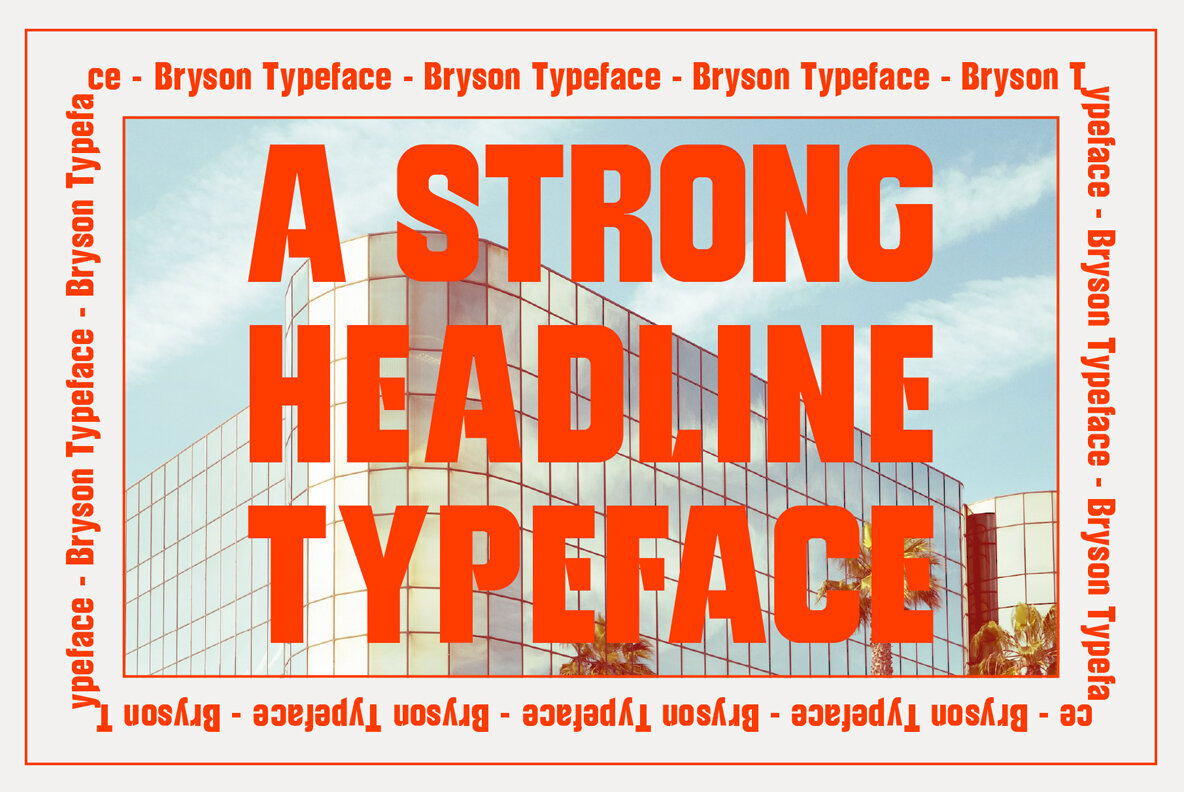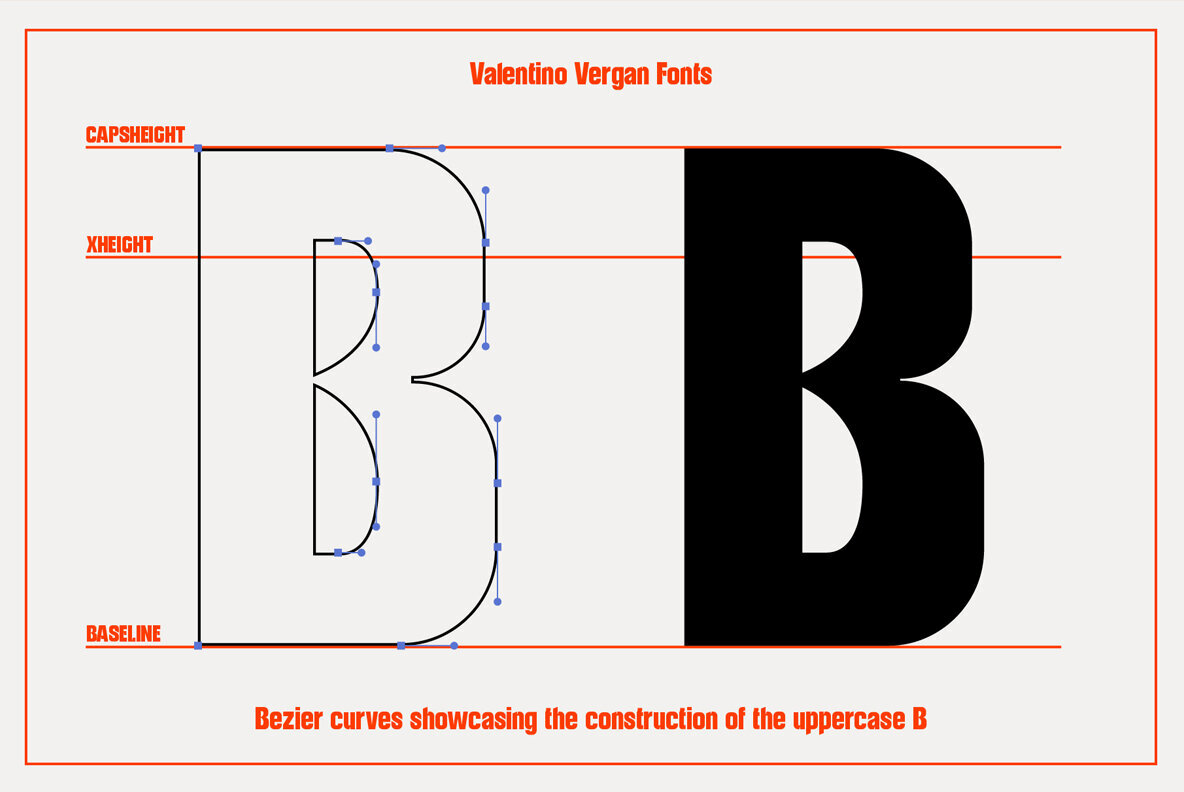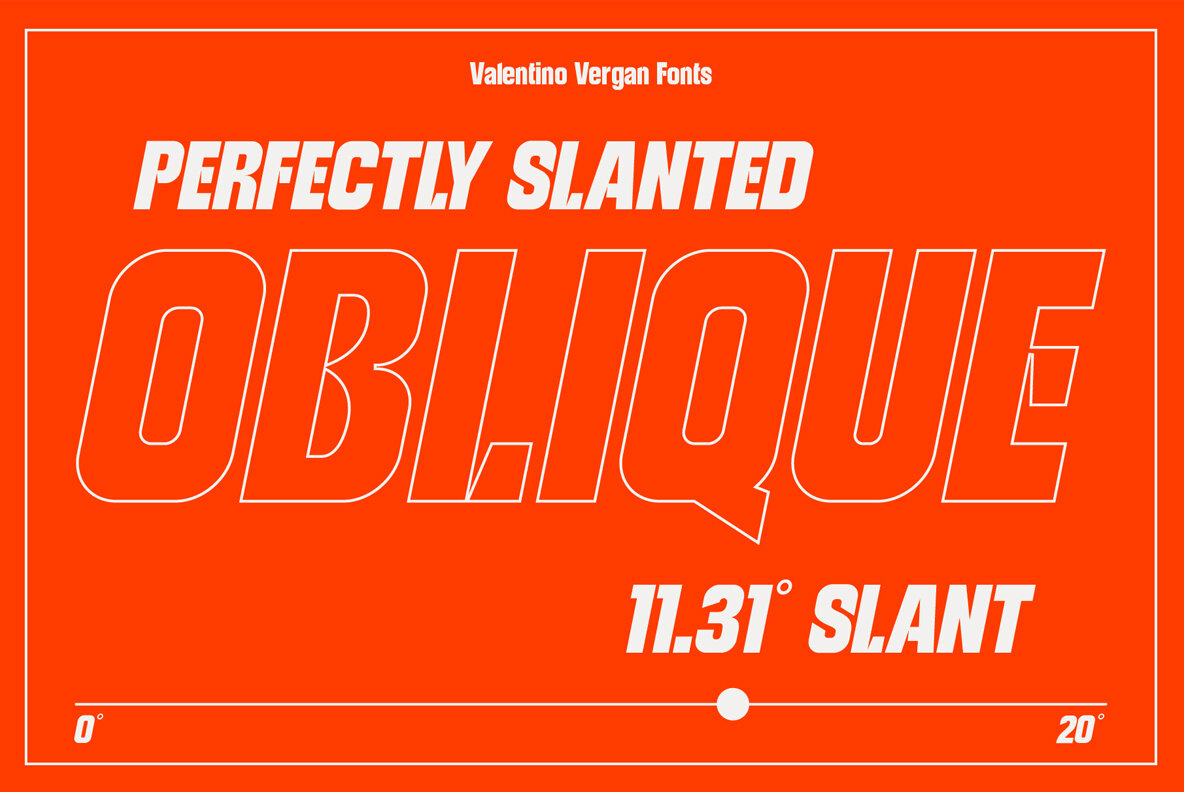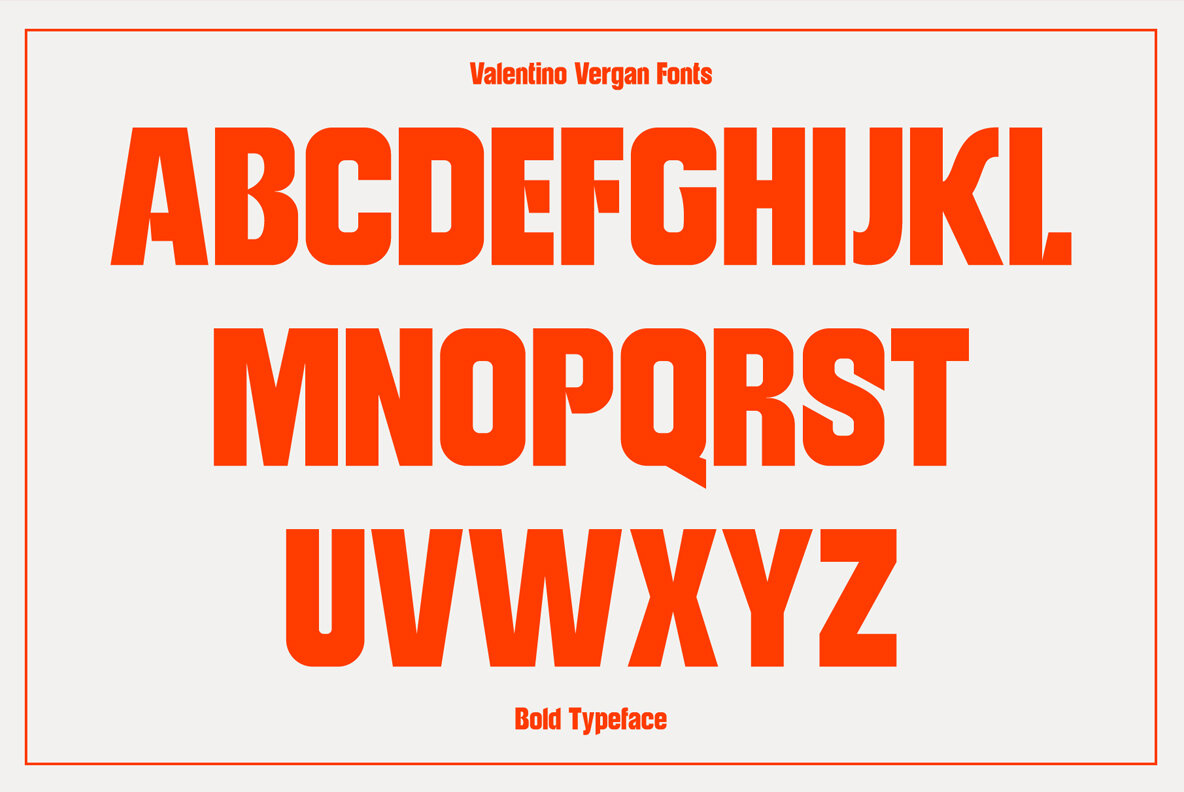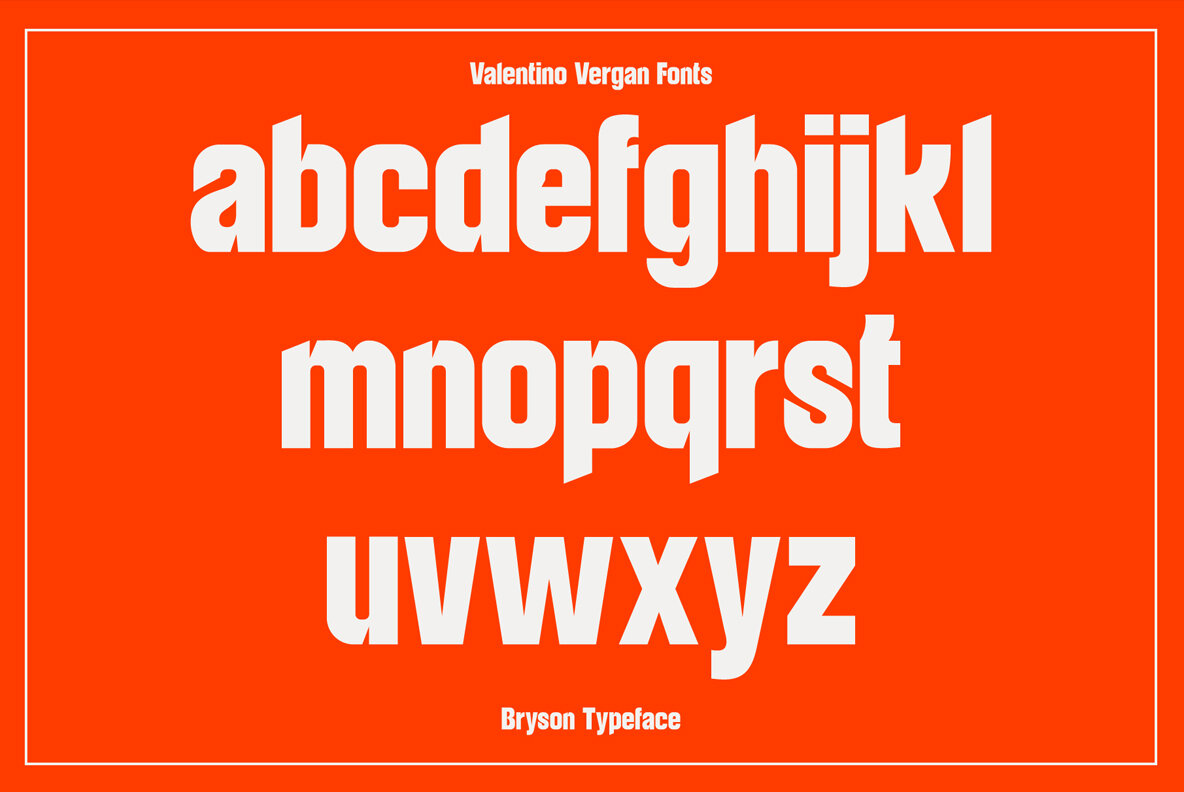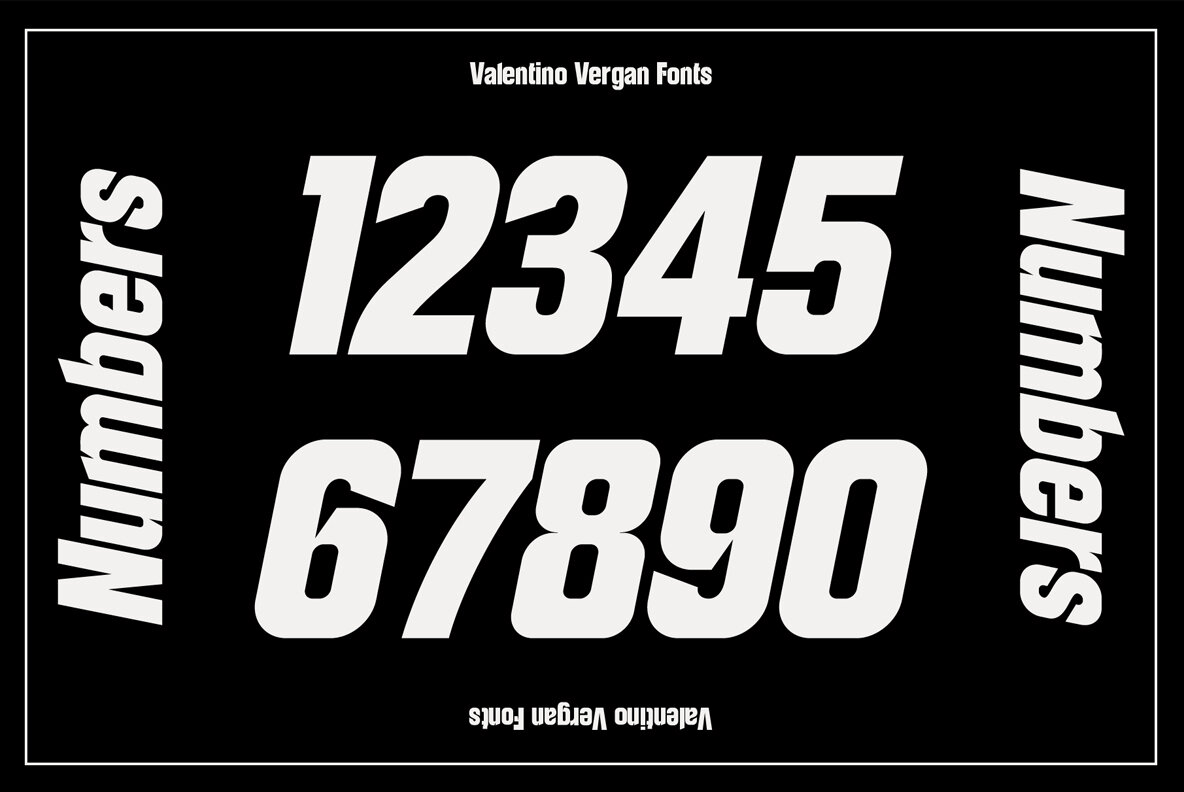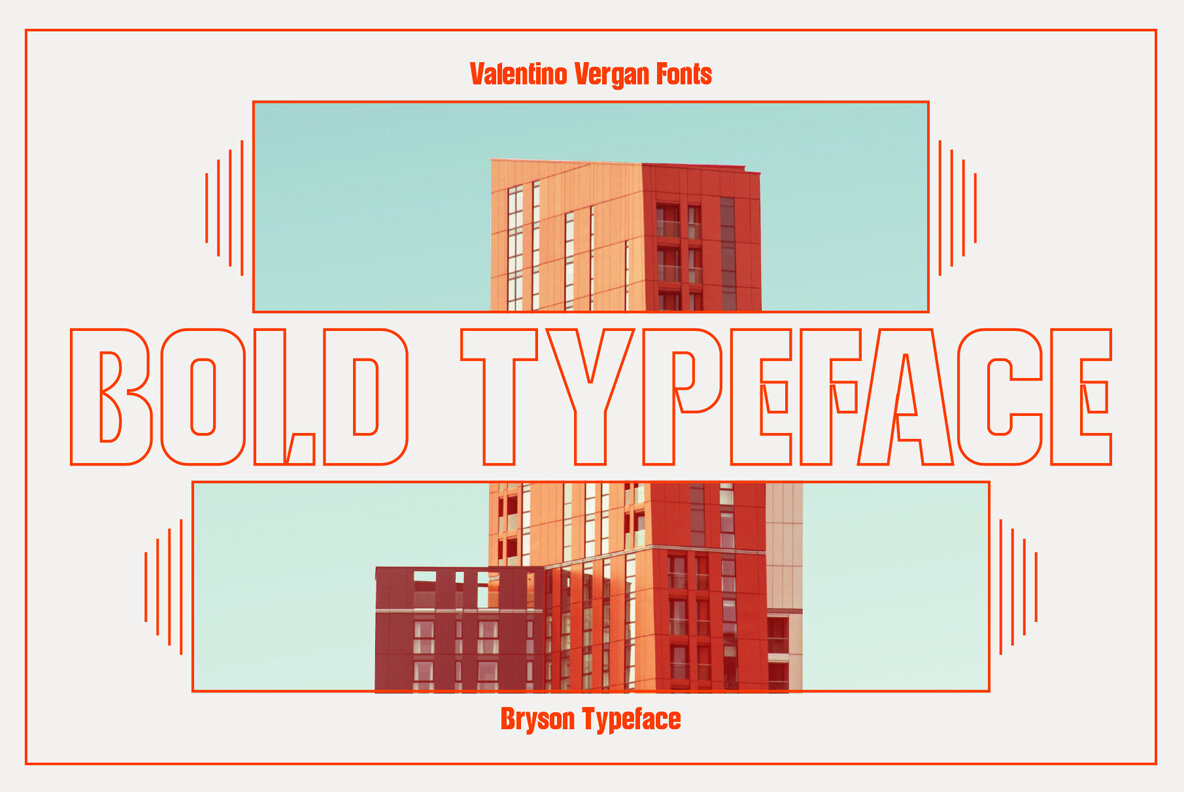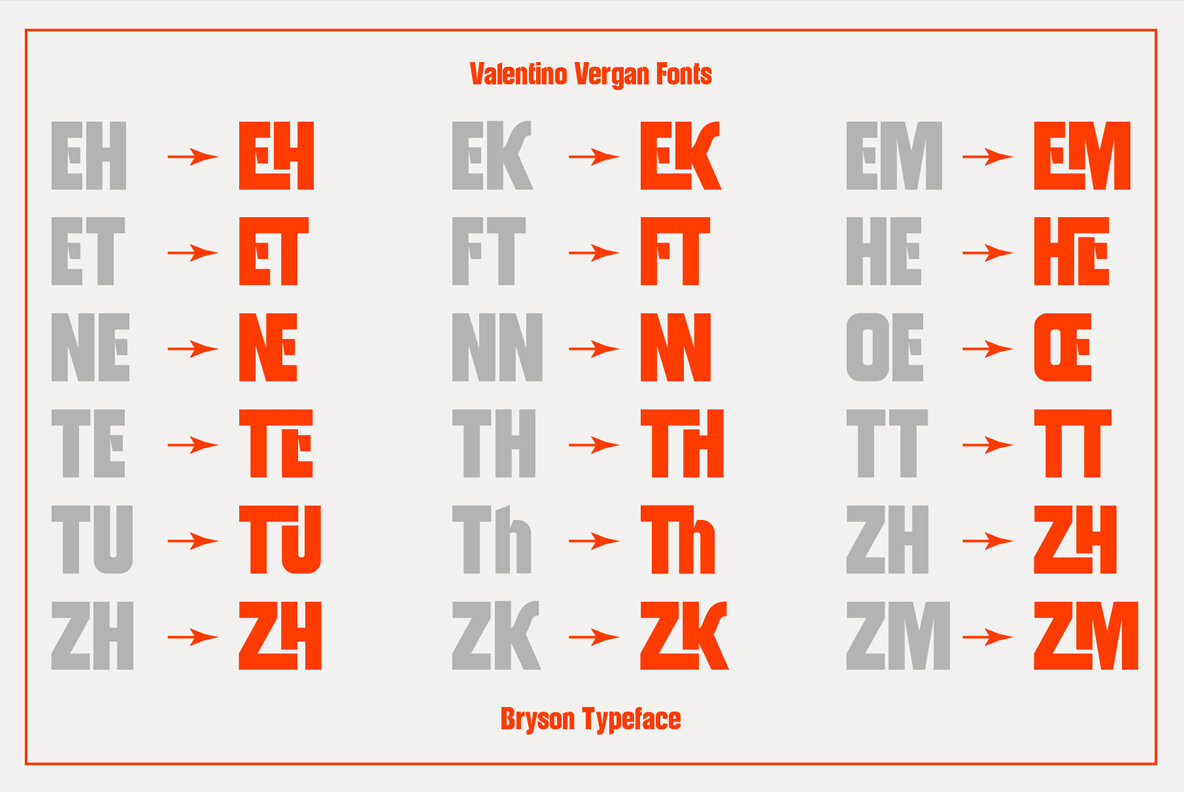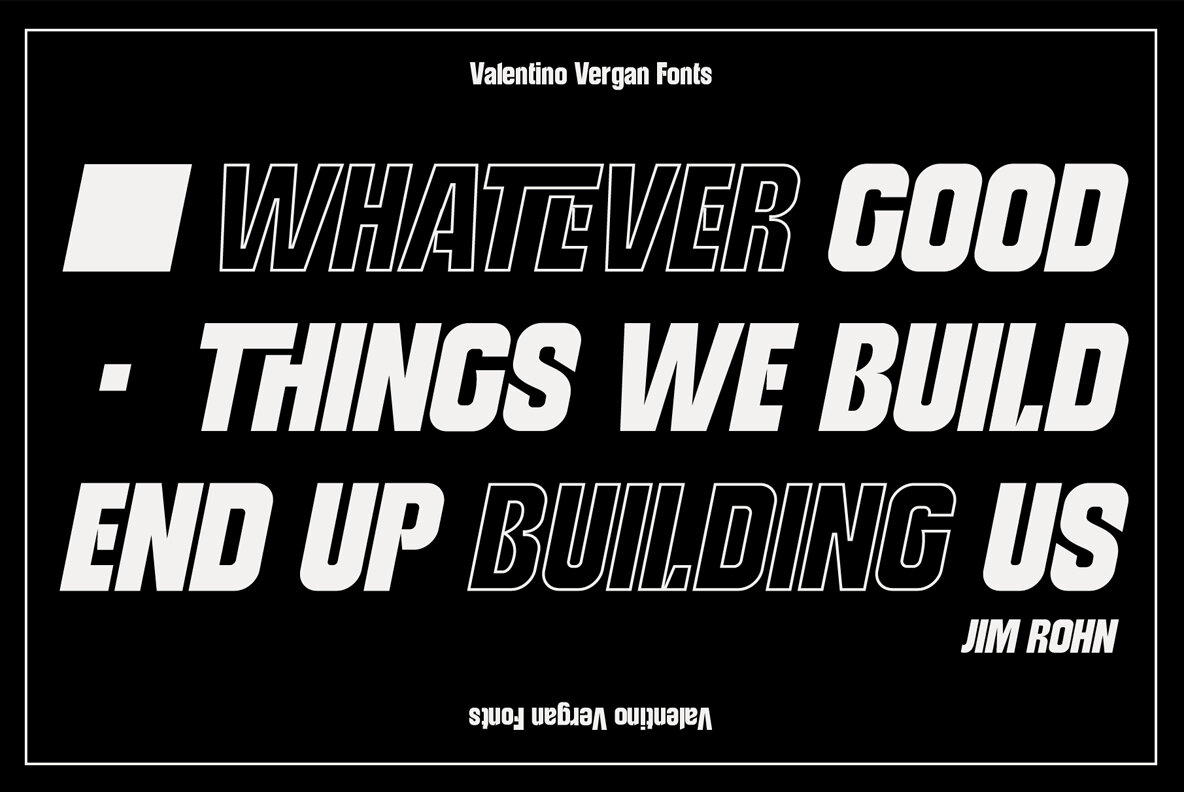
Bryson Font
Bryson Regular
Bryson Oblique
Introducing Bryson, A bold sans serif ligature typeface. The Bryson typeface is characterized by simple but distinctive shapes. The typeface is very eye catching, its tight kerning and bold shapes makes it great for retro designs. You can use it for a wide range of projects, including print and web.
If you are looking for something bold and retro for you next project, Bryson is the typeface for you.